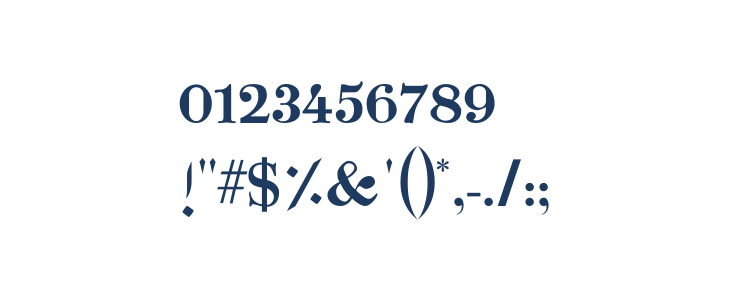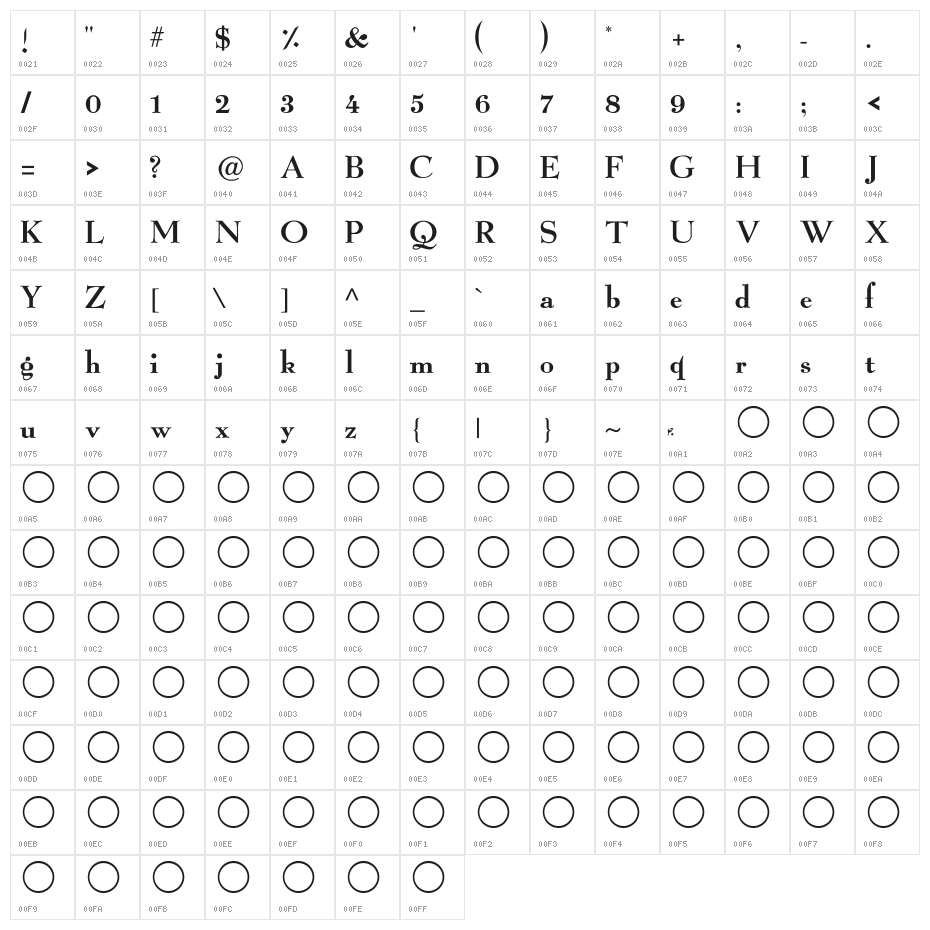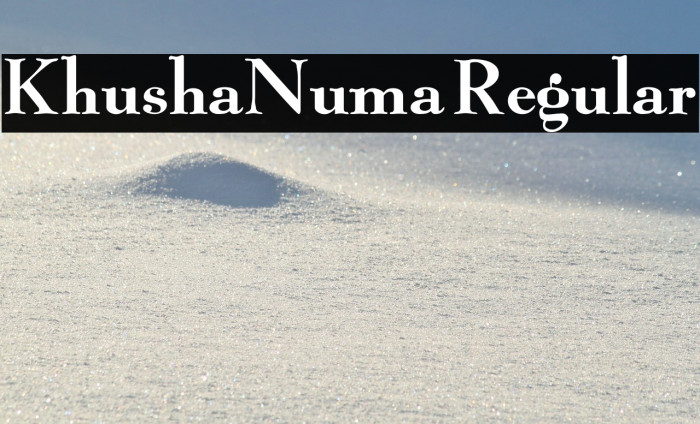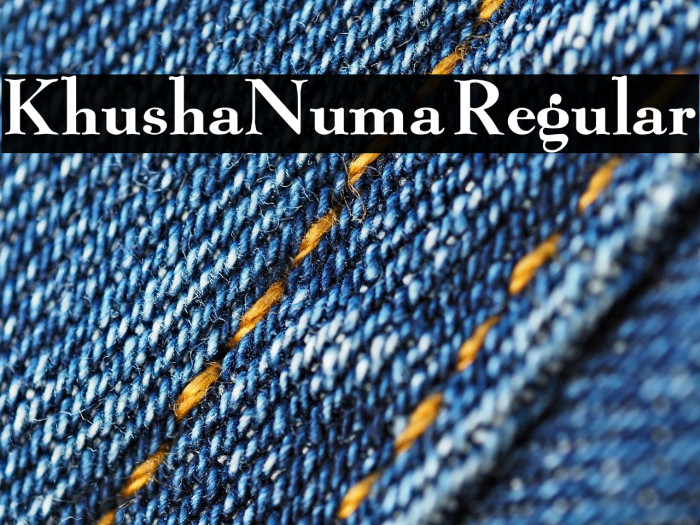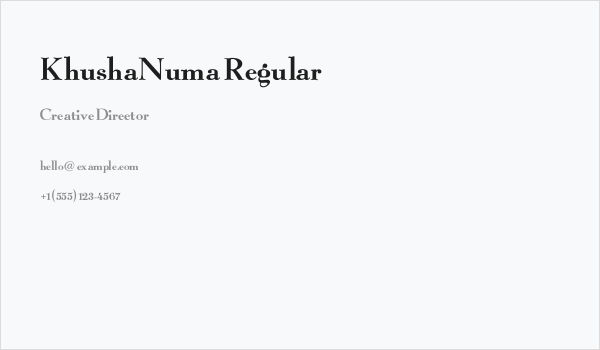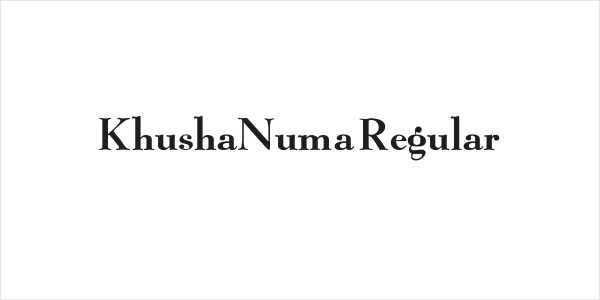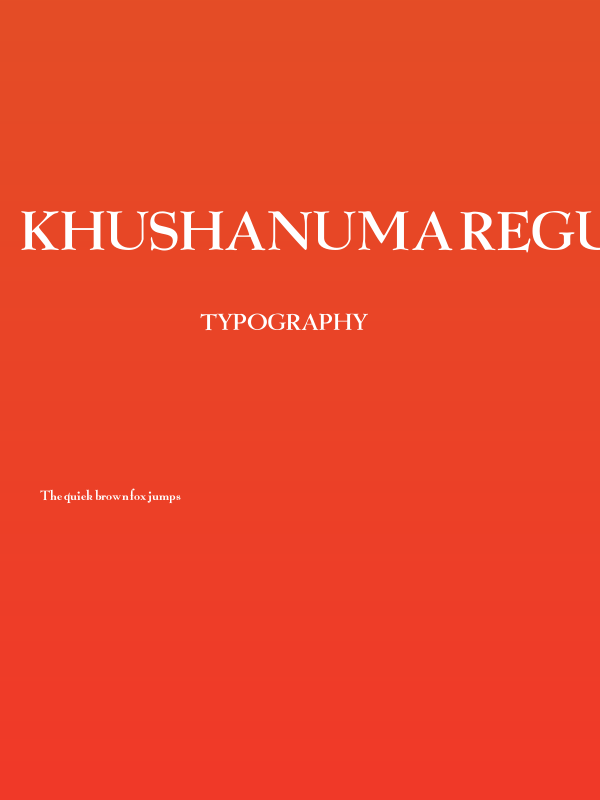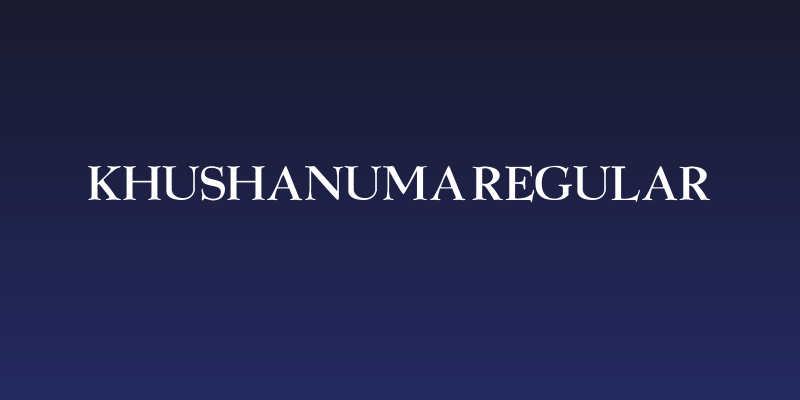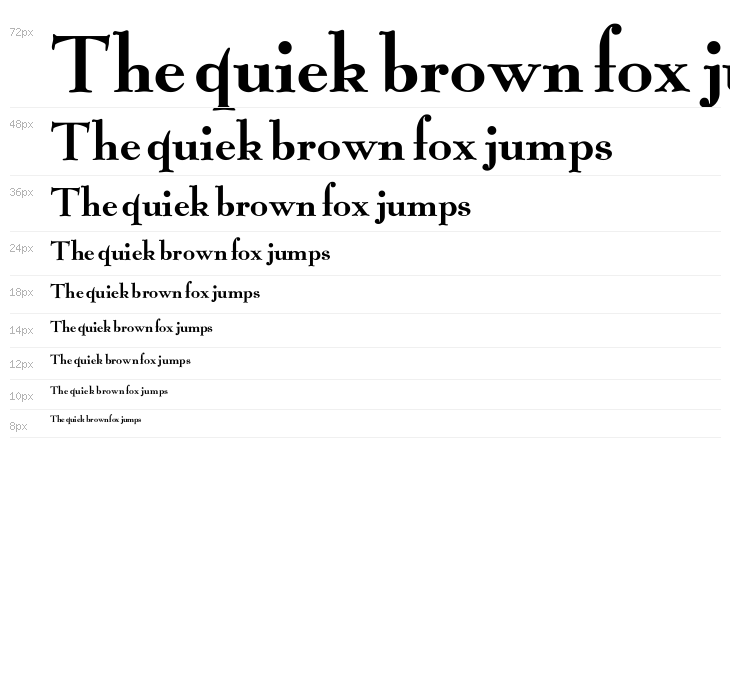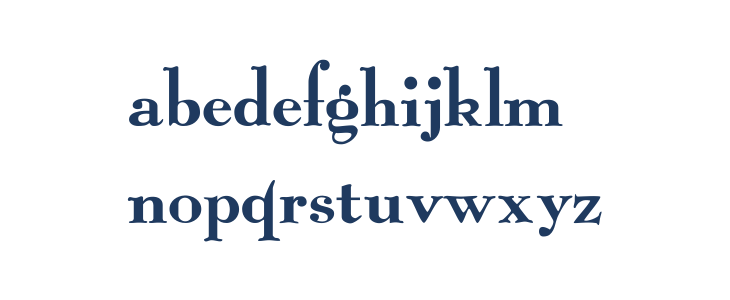
KhushaNuma Regular Font
KhushaNuma Regular Description
This font features a classic serif style with elegant, sharp serifs that give it a sophisticated and timeless appearance. The uppercase letters are bold and commanding, while the lowercase letters maintain a consistent style with slightly more rounded forms. The numerals are clear and distinct, making them easily readable. Special characters are well-integrated, maintaining the overall aesthetic of the font. The design is versatile, suitable for both formal and creative uses, and it conveys a sense of tradition and reliability.
Overall StyleClassic
Proposed ProjectsIdeal for use in editorial design, book covers, formal invitations, and branding projects that require a touch of elegance and tradition.